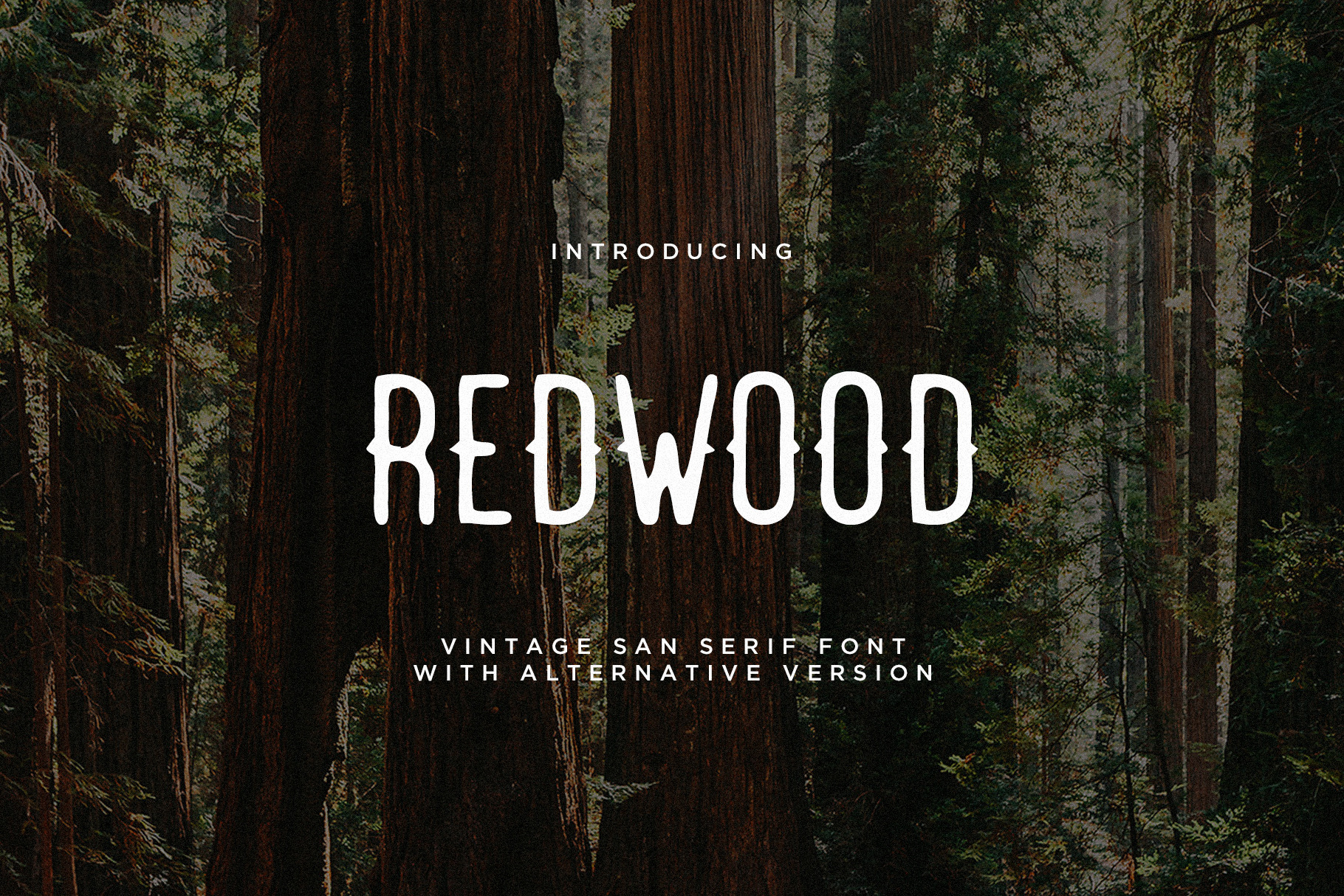
Redwood Font + Extras
Redwood is vintage sans serif hand drawn font with a rough look with alternative version. Redwood is perfect for branding, logos, t-shirts, hoodies, etc.
Redwood features:
- 2 Versions: Regular, Alternative
- Letters